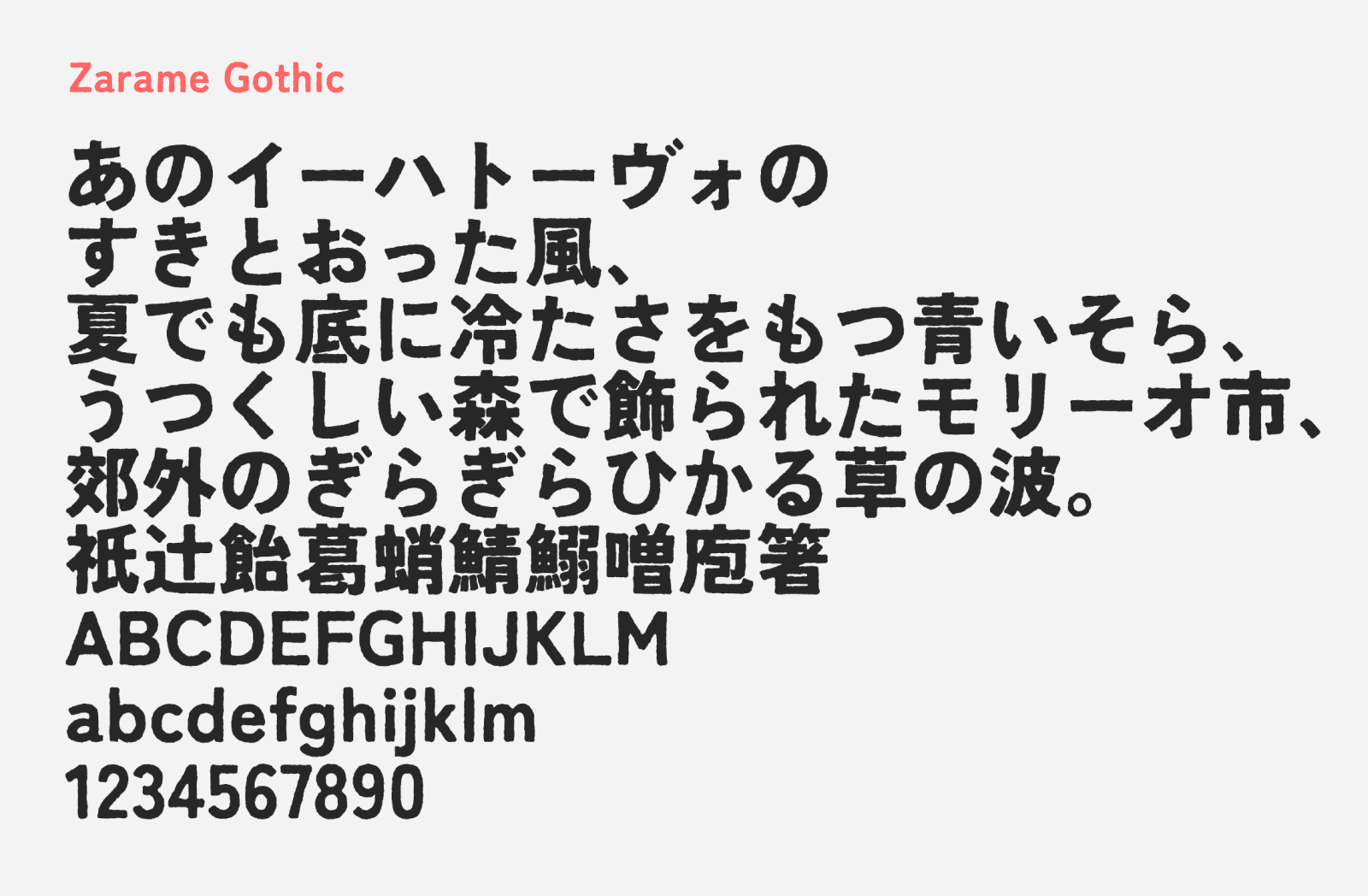
Zarame Gothic
Zarame Gothic (ざらめゴシック) is a free Japanese display style gothic (sans-serif) font created by mokuzai, built upon the open-source Zen Kaku Gothic Antique as its base. The name “zarame” (ざらめ) refers to coarse sugar crystals, which is a fitting descriptor for the font’s defining visual treatment: the letterforms have been processed with an ink trap effect (墨だまり) and a deliberate rough, gritty texture. The result is a gothic font that carries an organic, slightly worn quality, as though the characters were stamped with an inked seal rather than rendered digitally clean. It is a simple but effective transformation that gives a familiar sans-serif skeleton a much more characterful and tactile personality.
Because Zarame Gothic is derived entirely from automated processing, the creator notes that some characters may not have been processed as cleanly as others. That said, the overall result is charming and well-suited for display use where a rough, handcrafted impression is desired. The font supports all the character sets inherited from its Zen Kaku Gothic base, including hiragana, katakana, kanji, alphanumerics, and standard punctuation. You can download Zarame Gothic for free and use it in both personal and commercial projects, as it is distributed under the SIL Open Font License.